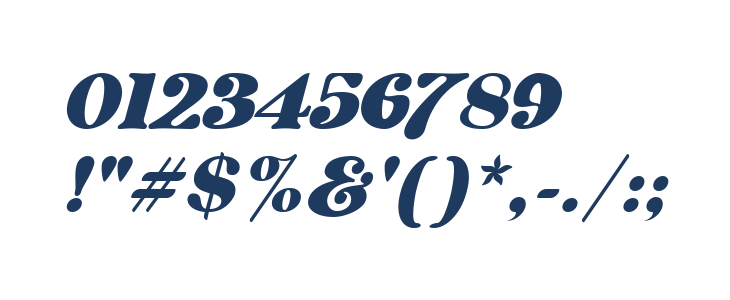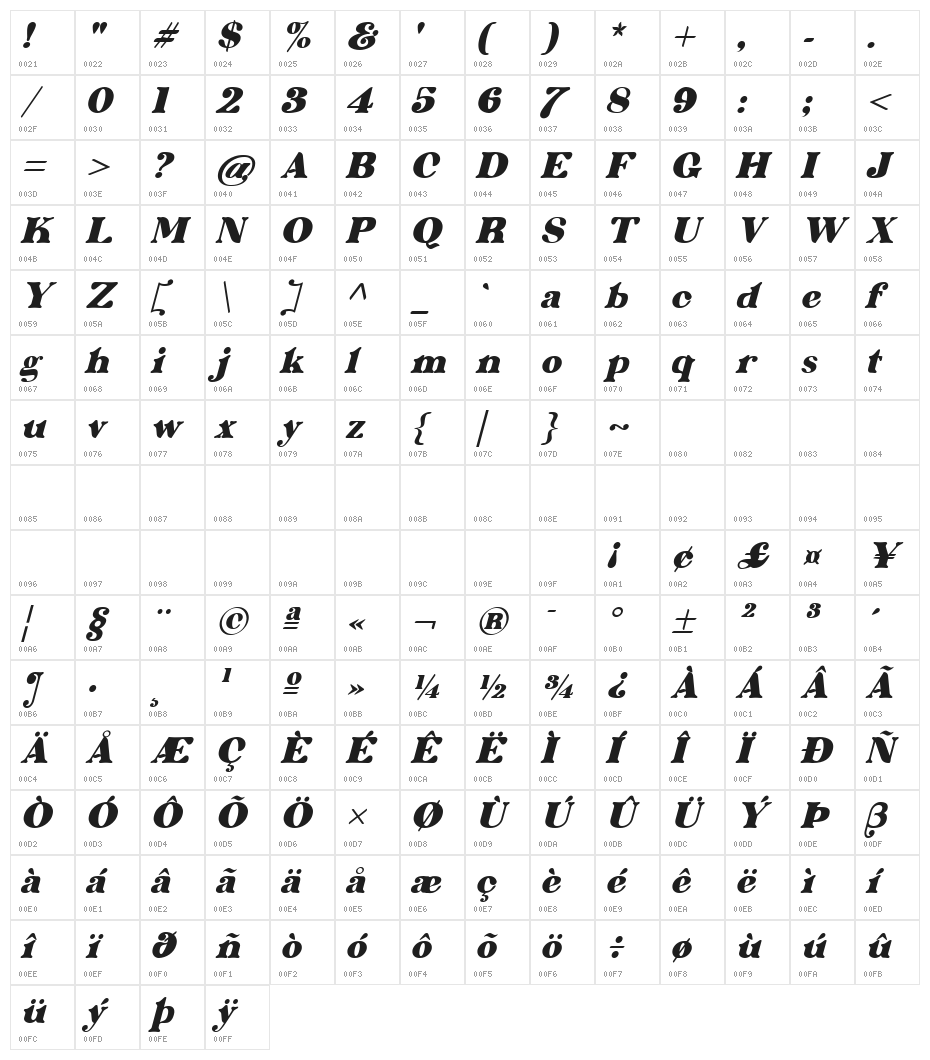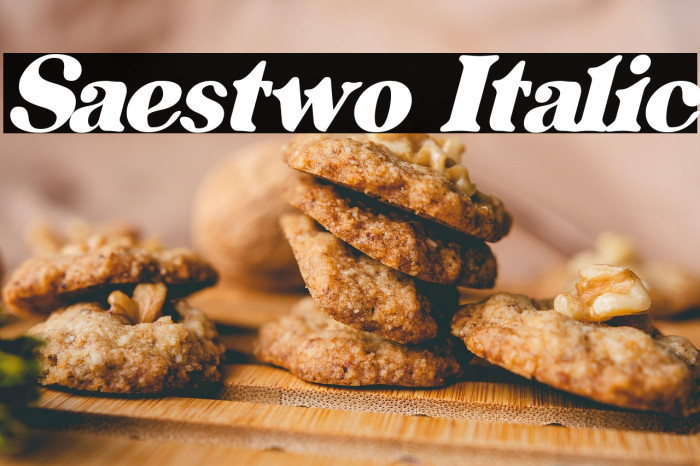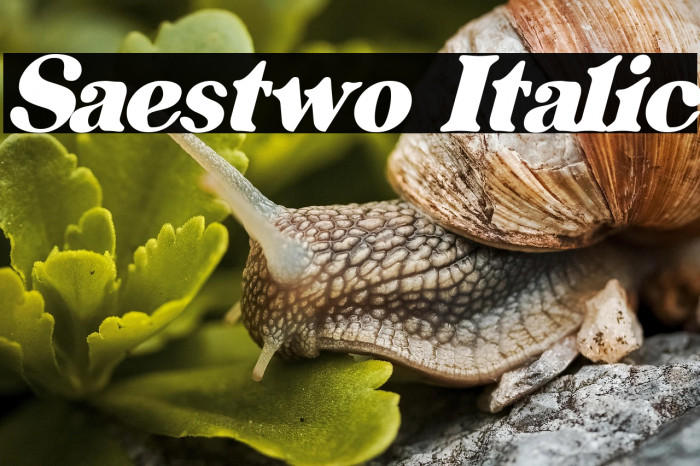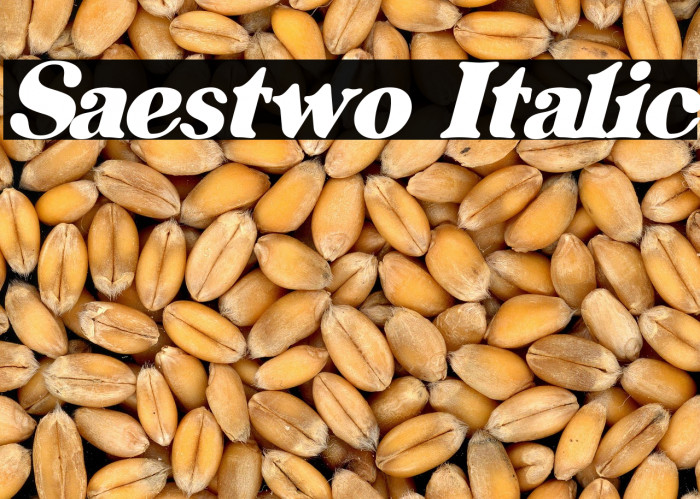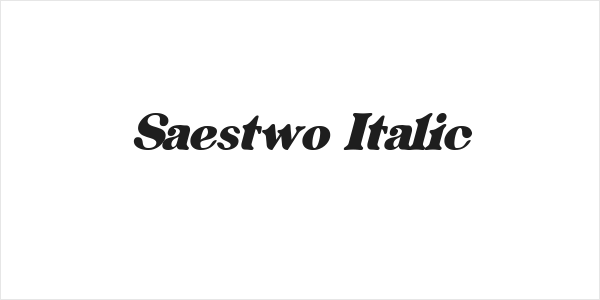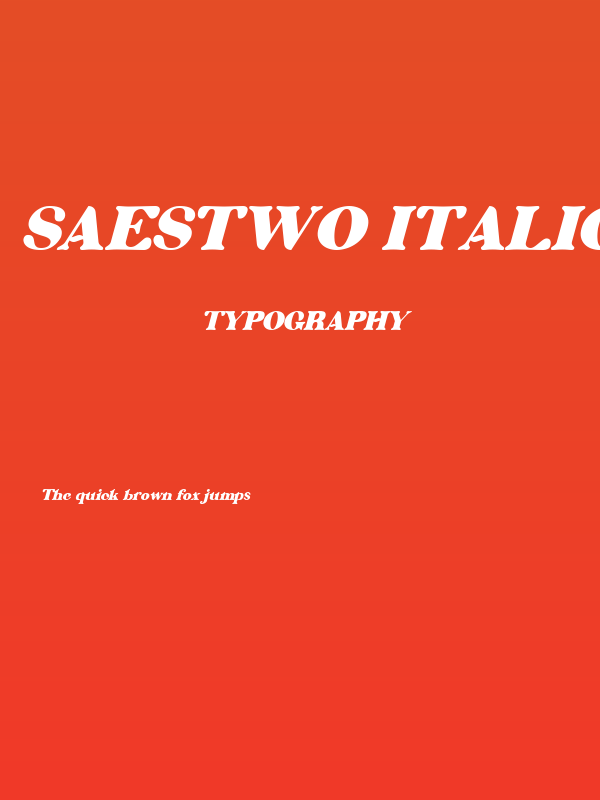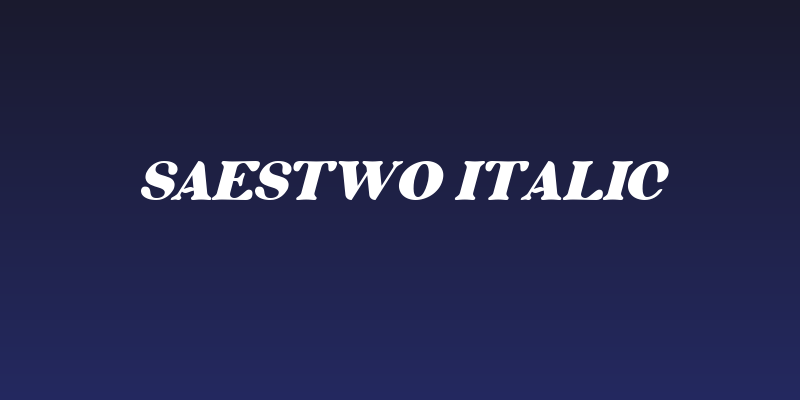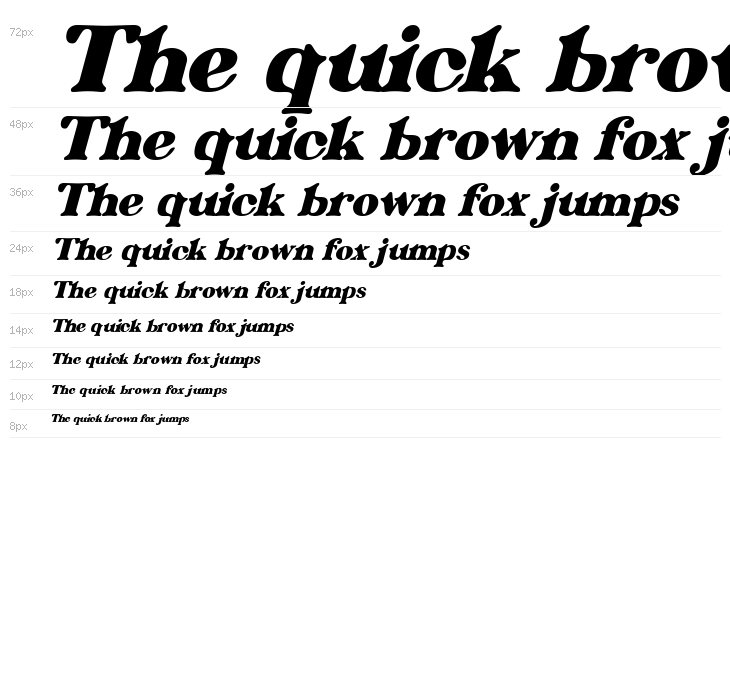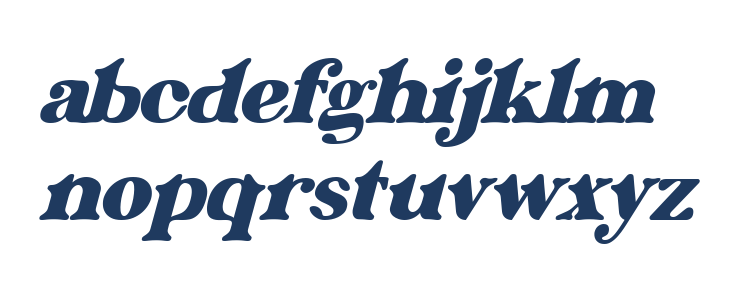
Saestwo Italic Font
Saestwo Italic Description
This font exhibits a bold and dynamic style with a pronounced italic slant, giving it a sense of movement and energy. The characters are thick and robust, with a high contrast between the thick and thin strokes, enhancing its dramatic appearance. The serifs are prominent and slightly curved, adding a touch of elegance and sophistication. The uppercase letters are strong and commanding, while the lowercase letters maintain a consistent flow, making the font versatile for various design needs. The numbers are equally bold, ensuring readability and impact. Special characters are well-defined, maintaining the overall aesthetic of the font.
| Use Case | Headlines, Logos, Editorial design |
| Proposed Projects | Ideal for headlines, posters, branding, and editorial design where a strong and elegant presence is desired. |